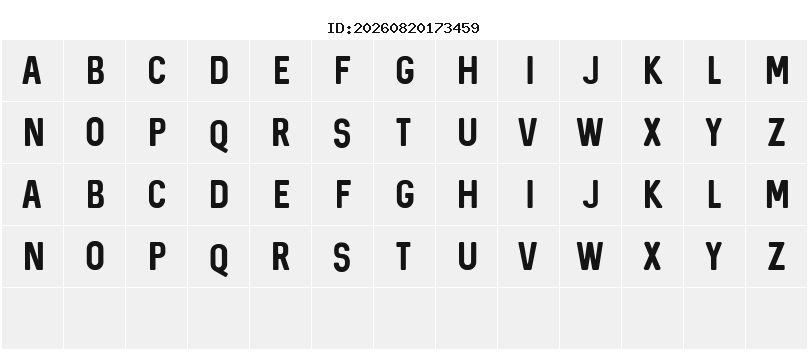
Sequel Preview
• Font Name: Sequel
• Full Font Name: Sequel
• Designer: Philip Trautmann
• Manufacturer: phitradesign
About Sequel.ttf
Sequel.ttf is a modern, elegant sans-serif font designed for ultimate readability and visual harmony. Perfect for branding, headlines, web design, and print materials.